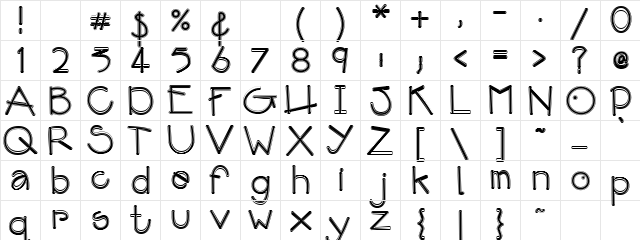
DJ OutLine Regular
DJ OutLine brings ornamental detail and strong personality to headlines and identities, where visual impact matters more than quiet functionality.
Font Pairing: Pair with a clean neutral sans-serif for body copy to let DJ OutLine's character lead without overwhelming the composition.
Pro Tip: Use DJ OutLine exclusively at display sizes — it was designed to be seen, not read at length. Let a neutral companion handle body copy.